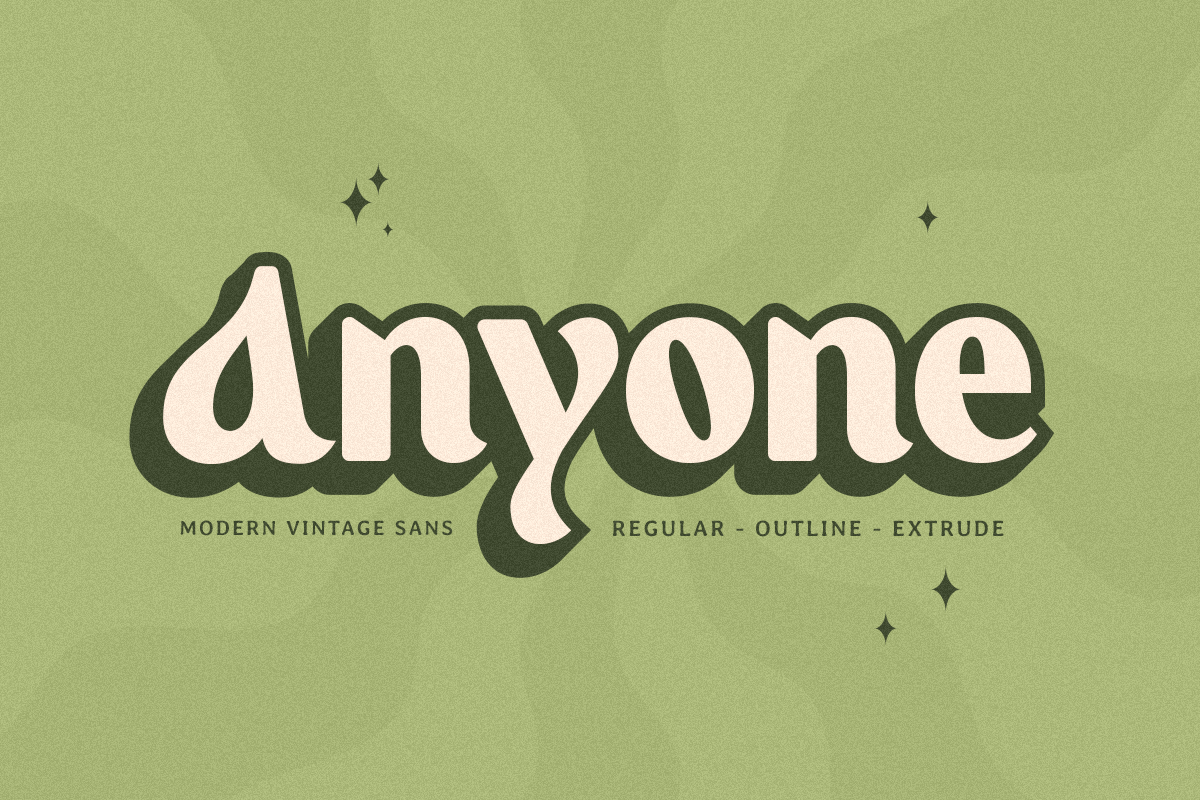
Anyone
-Vintage Font
anyone
Anyone
anyone outline
Anyone
anyone extrude
Anyone
A Vintage Cinematic Font with High Contrast Sans Serif font with a Cinematic, minimalist and unique, font that you can combine to get any variations and unique shapes easily just in seconds with choose alternates of them. It is a sans serif display font with moderate contrast that perfect for branding projects, logo, wedding designs, social media posts, advertisements, product packaging, product designs, label, photography, watermark, invitation, stationery, and any projects, it makes with a high level of legibility.